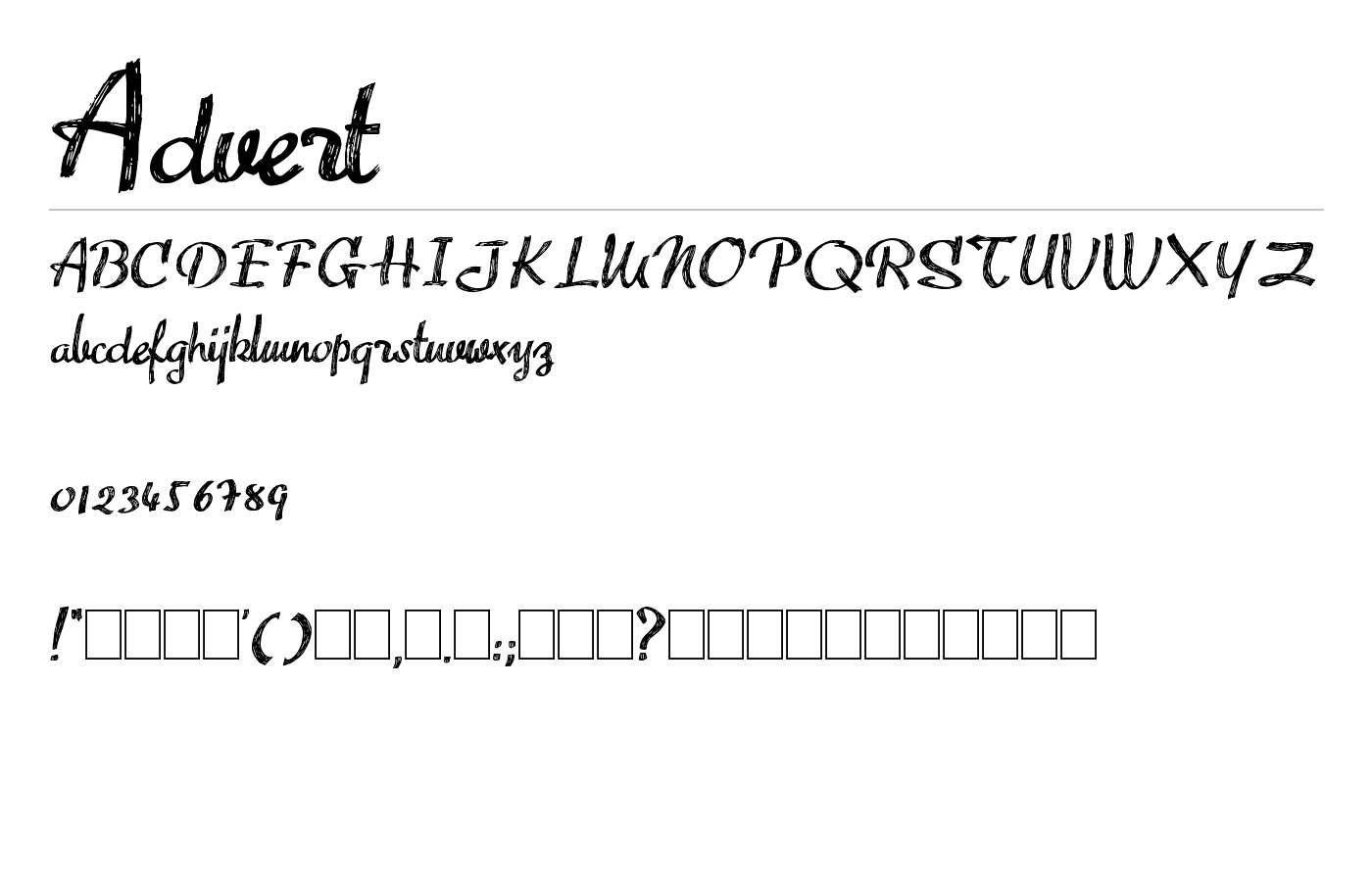
Advert Font is a dynamic, handwritten script with a casual and artistic feel, characterized by its rough, textured strokes and lively brush-like appearance. It balances legibility with expressive flair, making it ideal for creative branding, posters, and editorial projects that seek a bold, handcrafted touch. This font's energetic style works best in display settings where personality and a sense of spontaneity are desired.
Advert Font